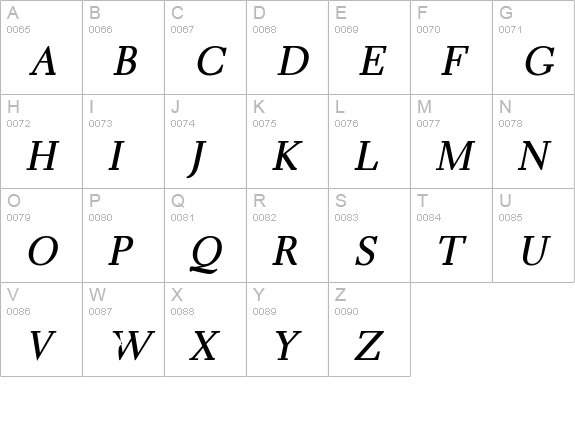
Transit 2 BoldItalic font is the epitome of elegance and modernity, designed to make a lasting impression. Its bold and italicized style exudes confidence and sophistication, making it perfect for any project that demands attention. With its unique blend of strong, sharp lines and graceful curves, Transit 2 BoldItalic font captures the essence of contemporary design. Each letter is meticulously crafted to create a harmonious balance between legibility and artistic flair. This font is not only visually stunning but also incredibly versatile. It can effortlessly elevate both digital and print materials, adding a touch of professionalism and refinement. Whether you're designing a logo, creating a website, or crafting a brochure, Transit 2 BoldItalic font will enhance your message and captivate your audience. What sets Transit 2 BoldItalic font apart is its accessibility. It is freely available to download at FontsMarket.com, making it an ideal choice for designers and creatives on a budget. No need to compromise on quality when you can have this exceptional font at your fingertips, without spending a dime. So why wait? Unlock the potential of your designs with Transit 2 BoldItalic font. Let its boldness and italics create a visual impact that leaves a lasting impression. Download it for free at FontsMarket.com and experience the perfect blend of style and affordability.